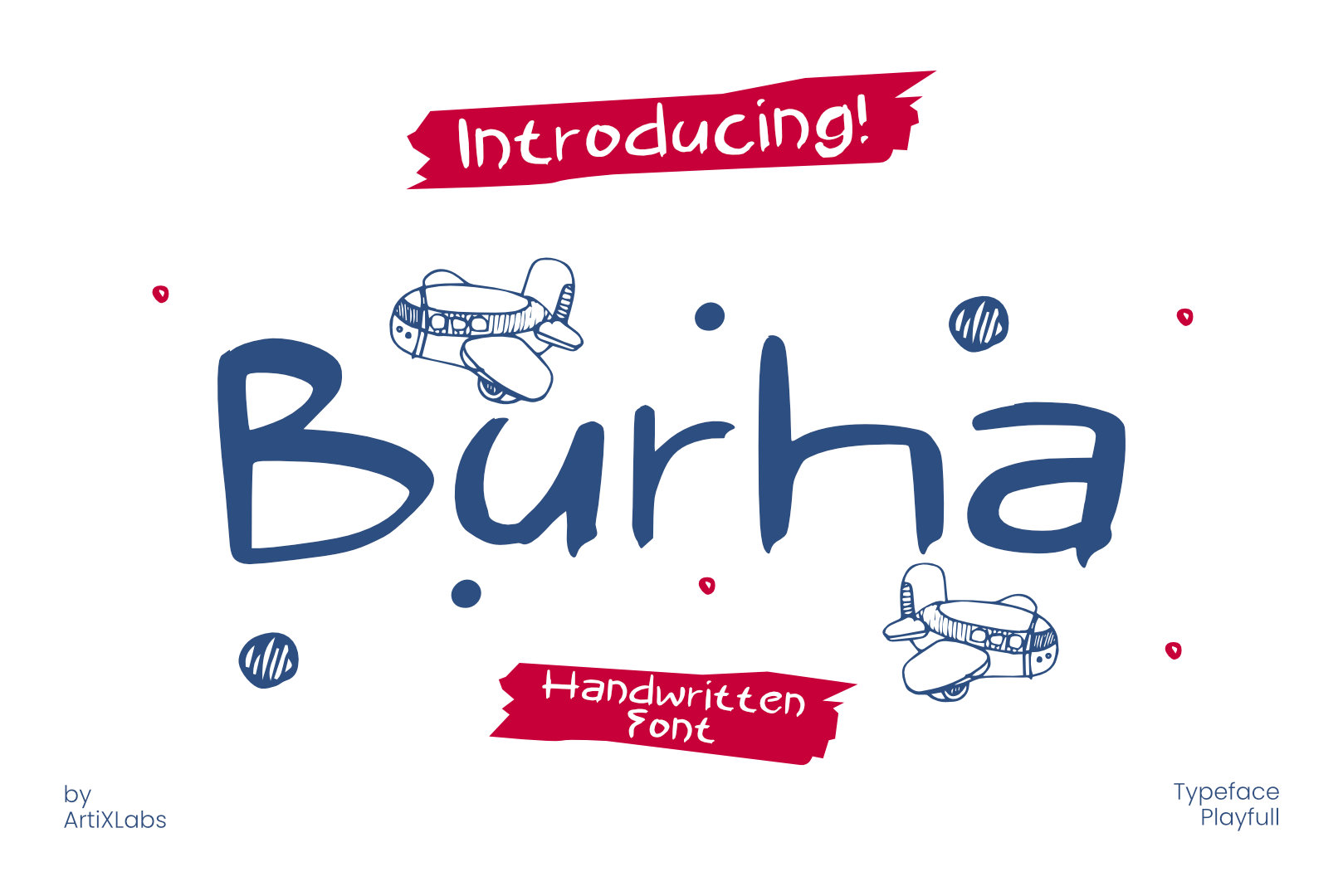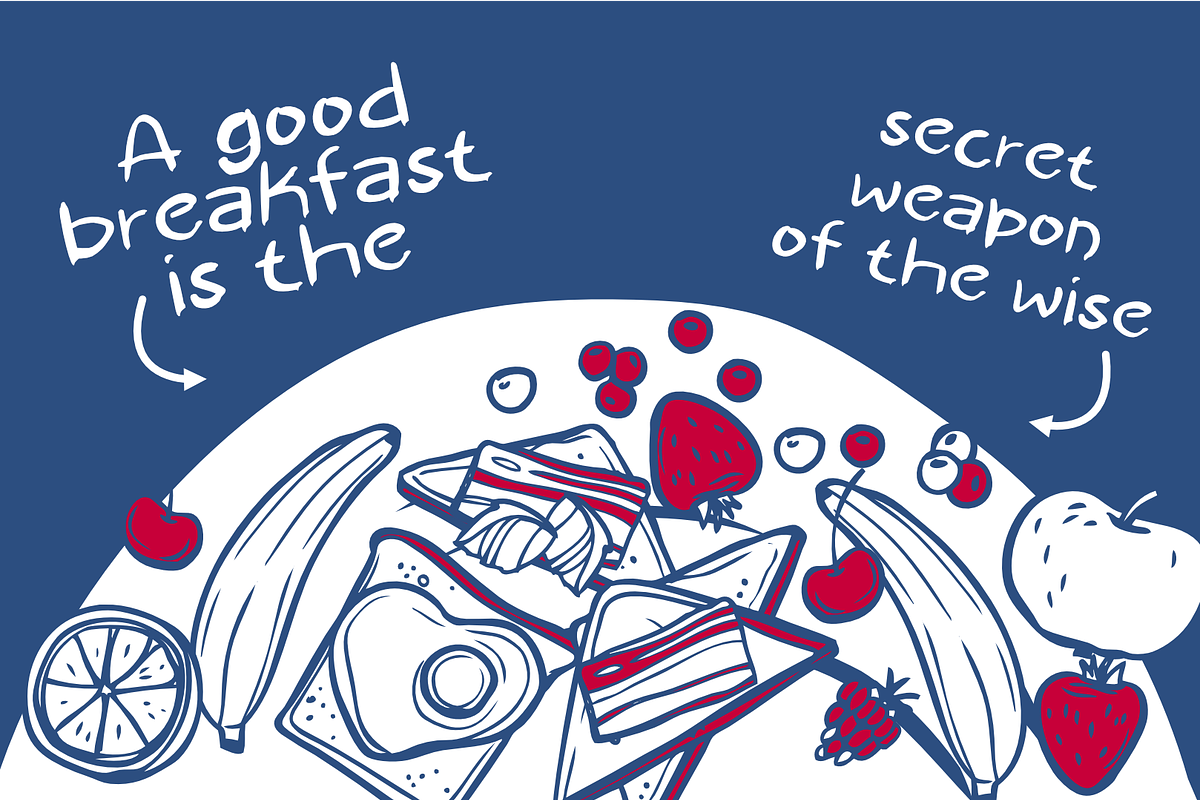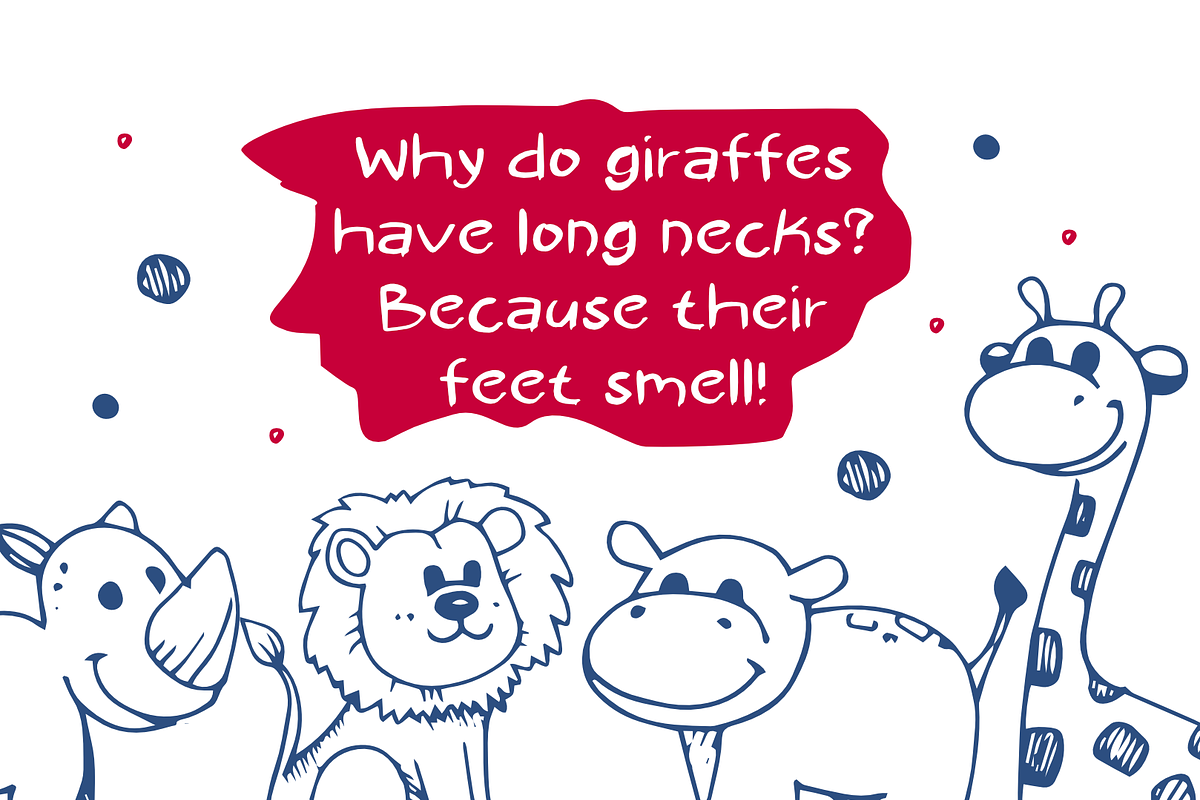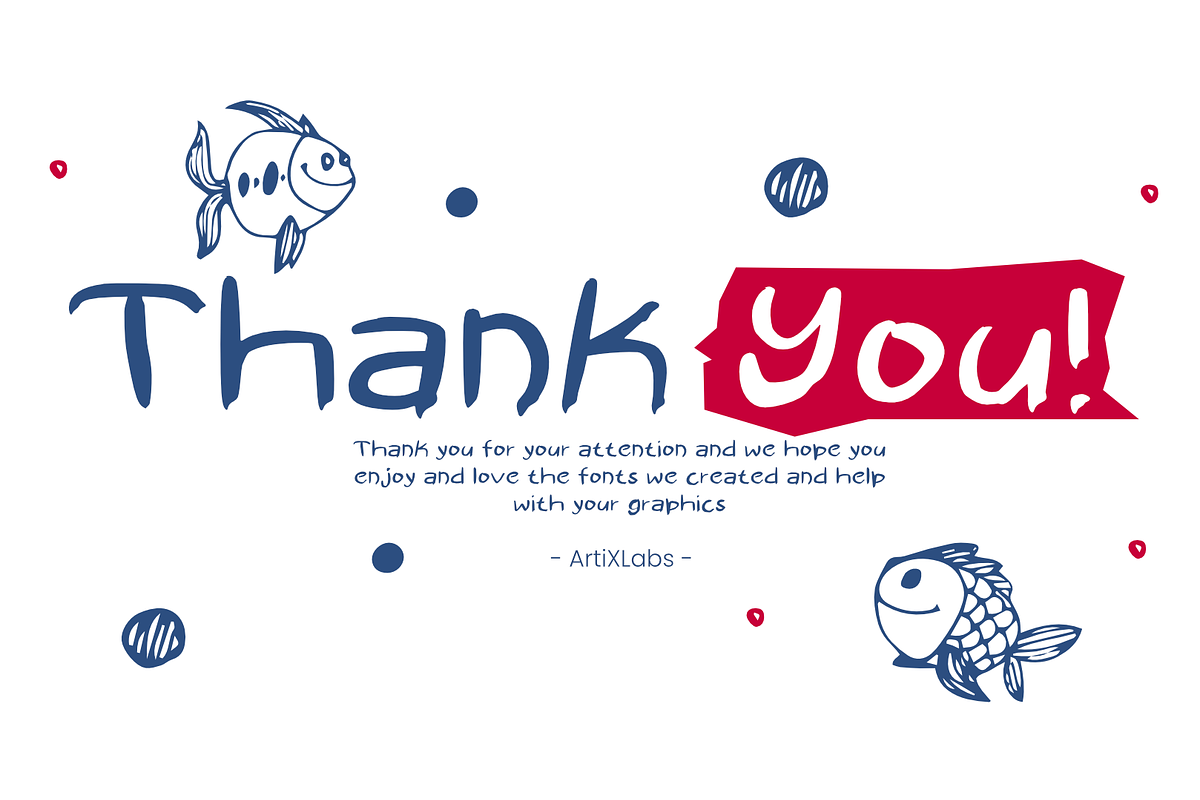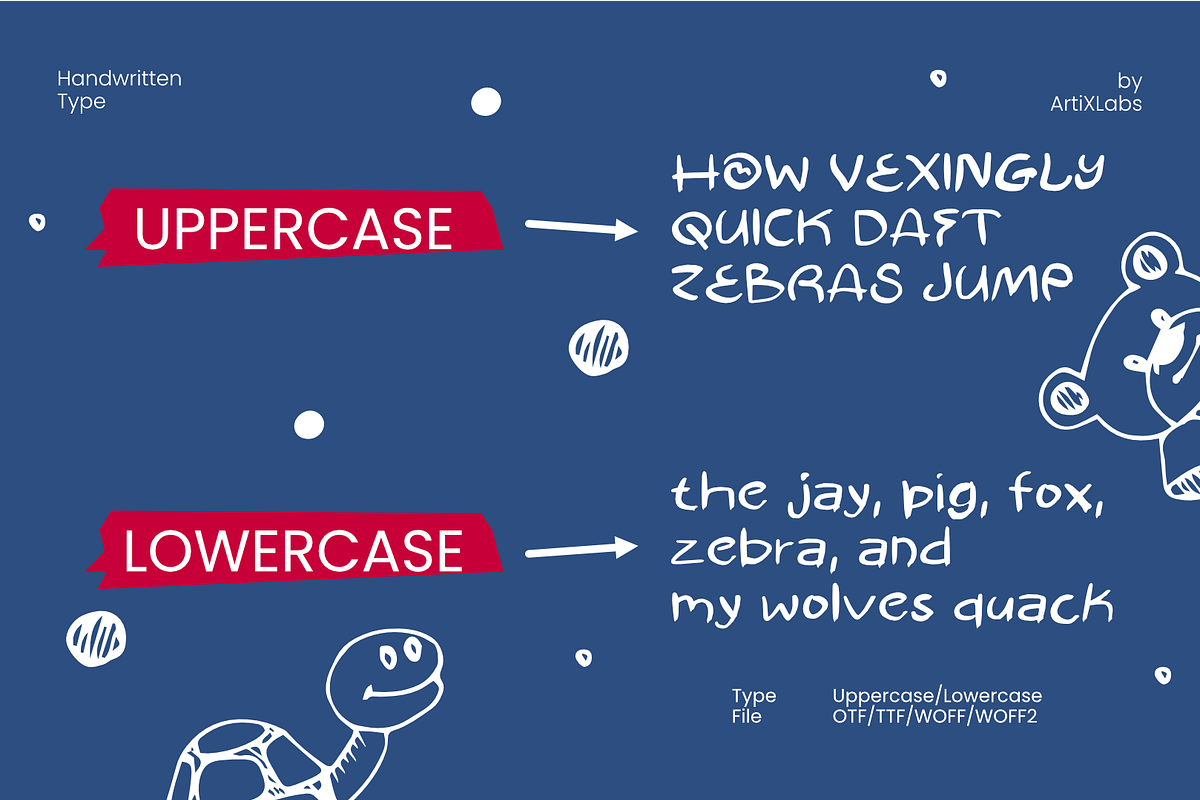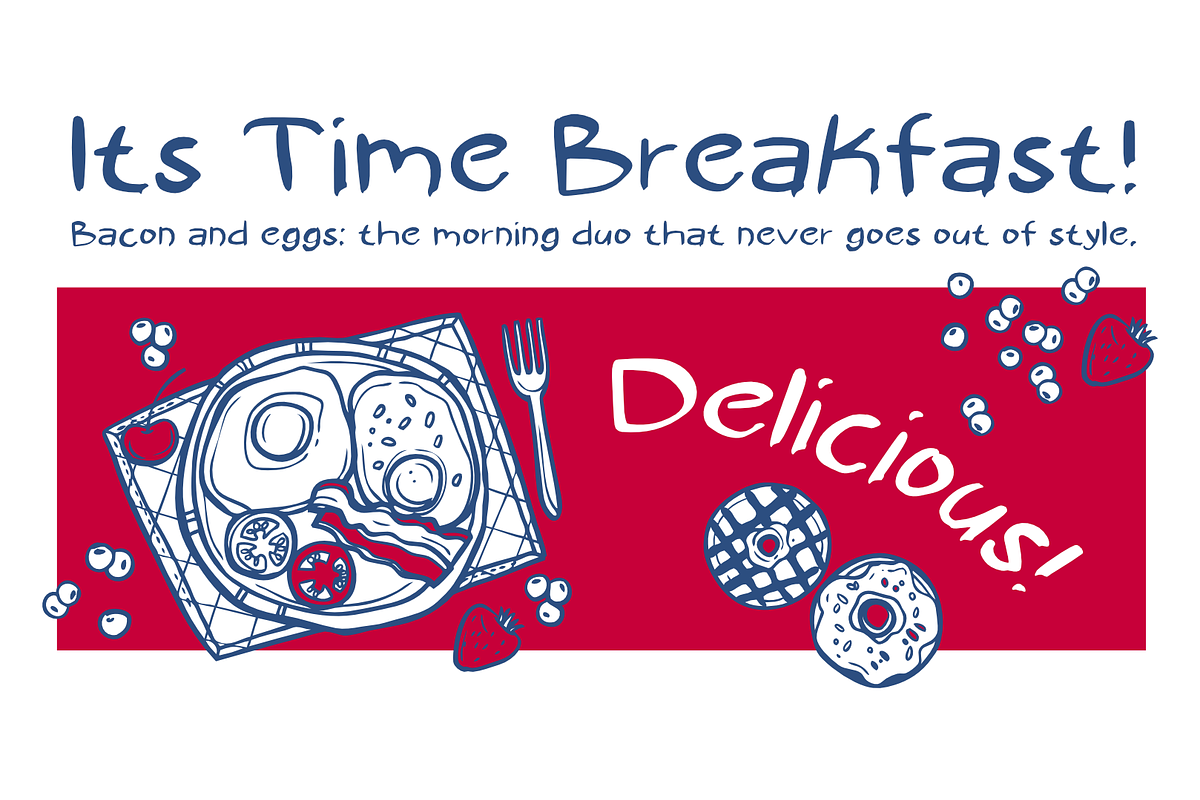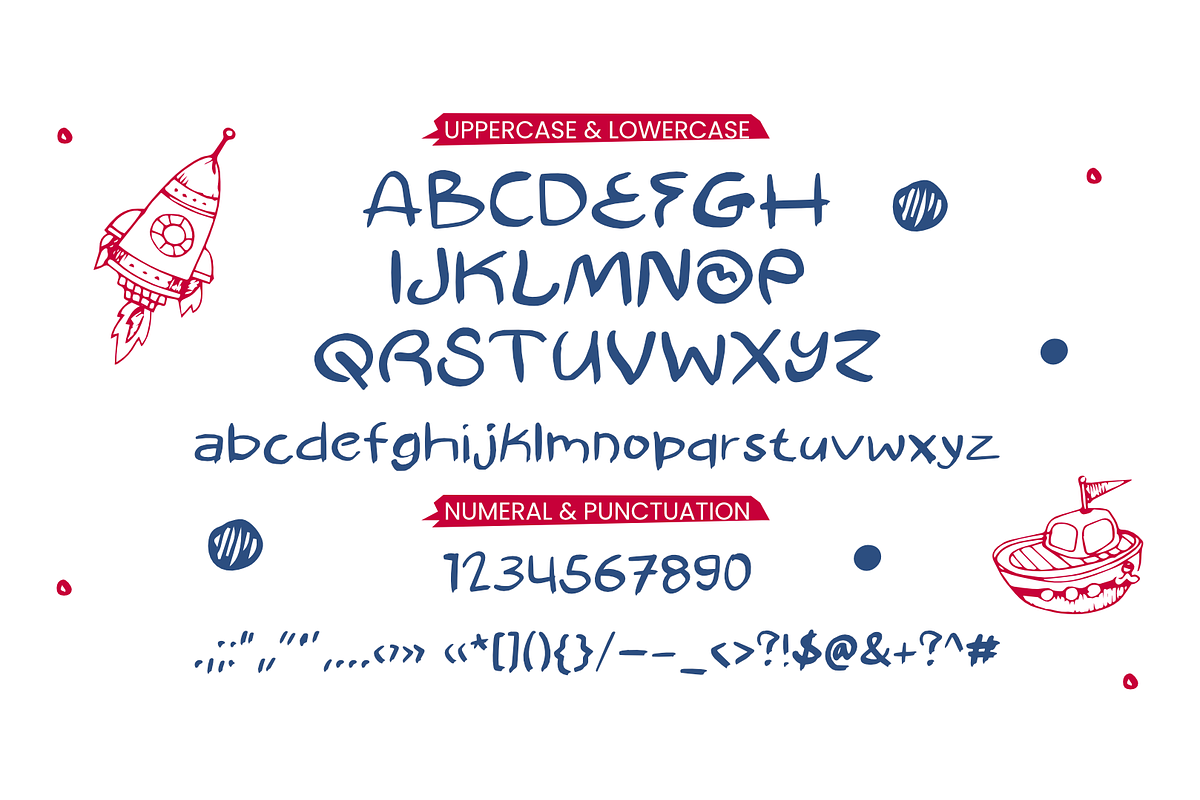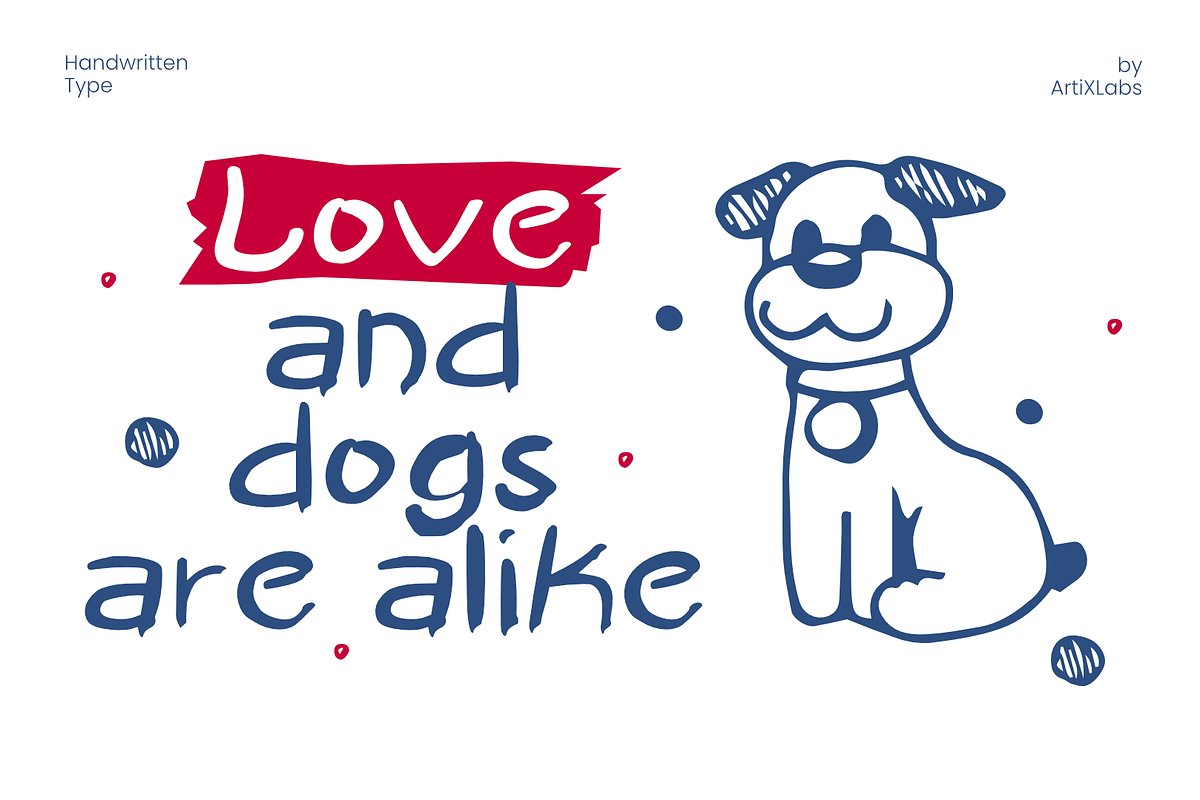
Burha Hadnwritten Playfull Font
Introducing Burha - Quirky Handwritten Playfull Font
This Font can be used for any variety of purposes, such as:
photography, Wedding, Ceremony, Packaging Products, Logo Type, Branding, T-Shirt Design, Website/Blog, Headline Magazine, Brochures and also can be used for other purpose.
This Font Template contains Classic, Playfull, Kids, Creative, Professional and Unique Concept.
- Uppercase & Lowercase letters